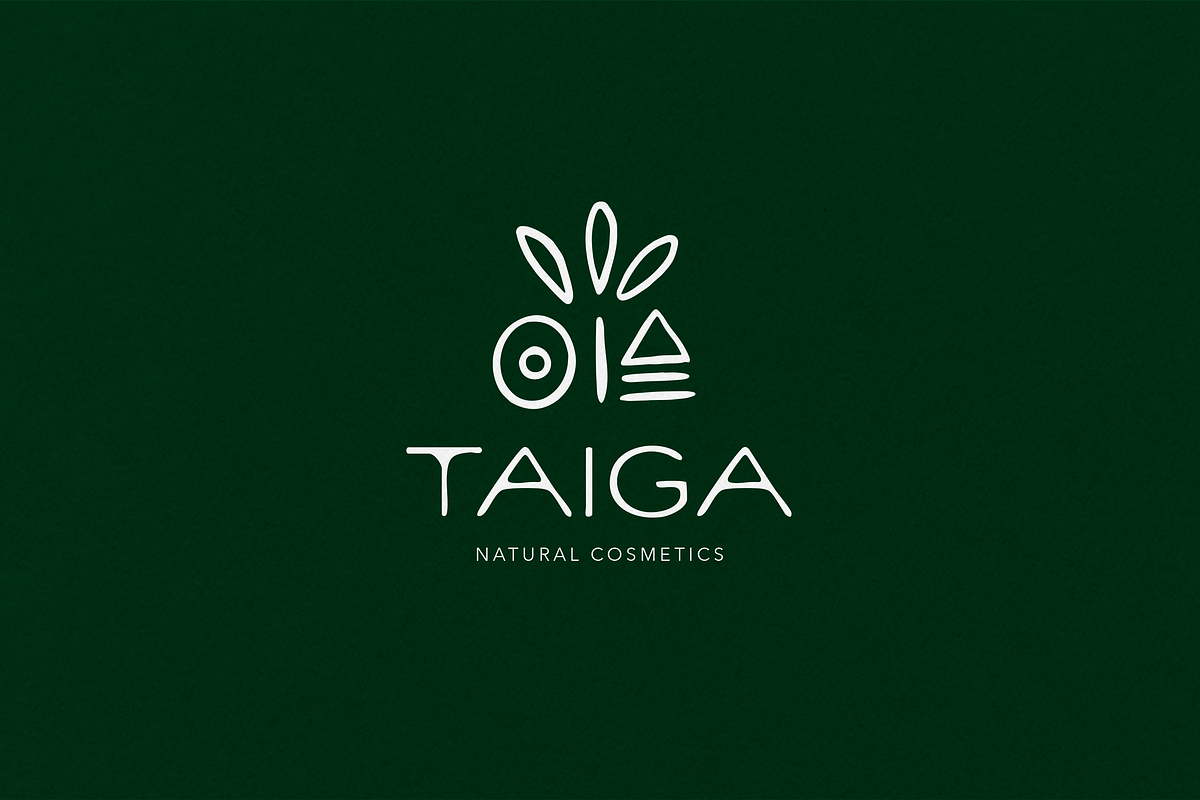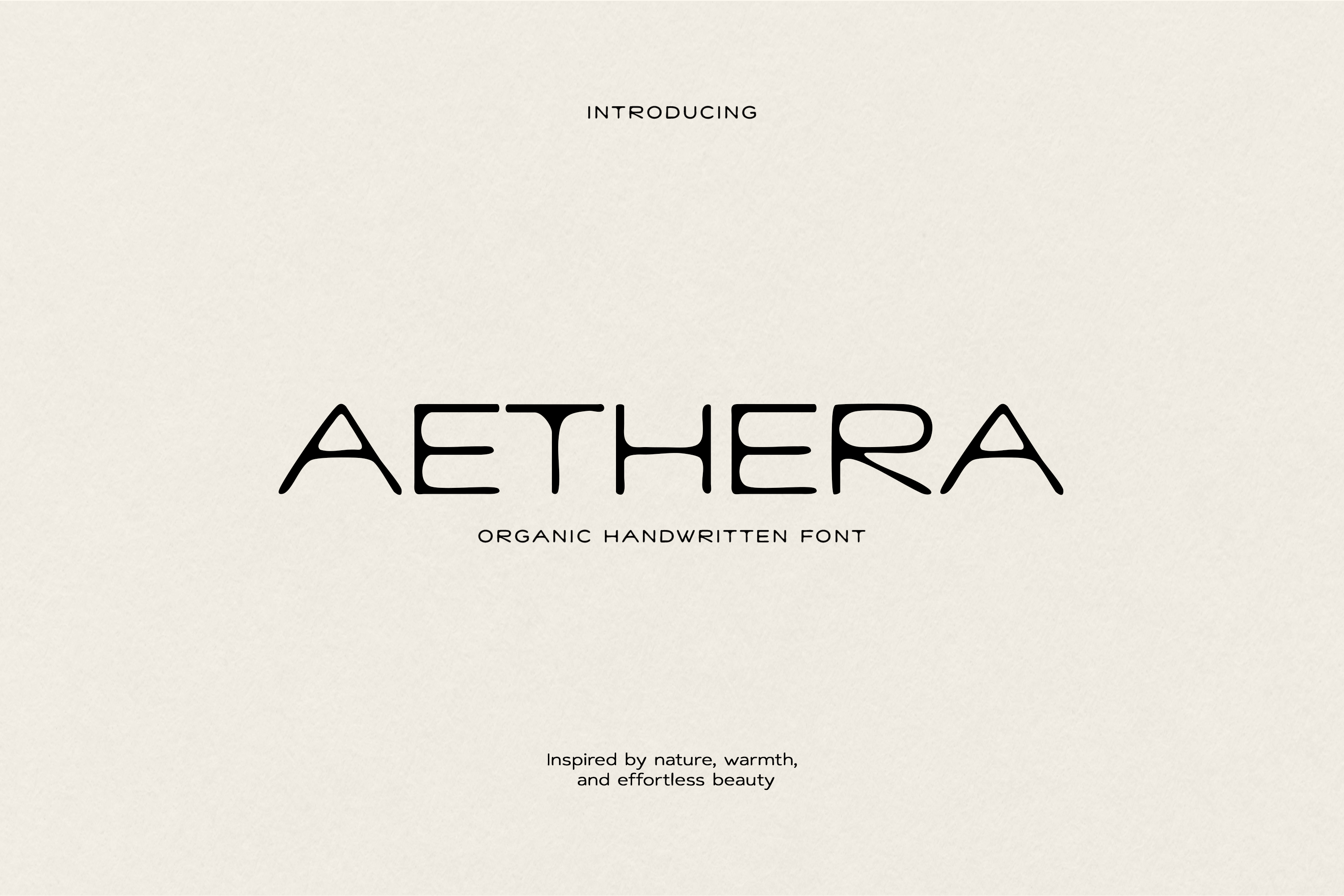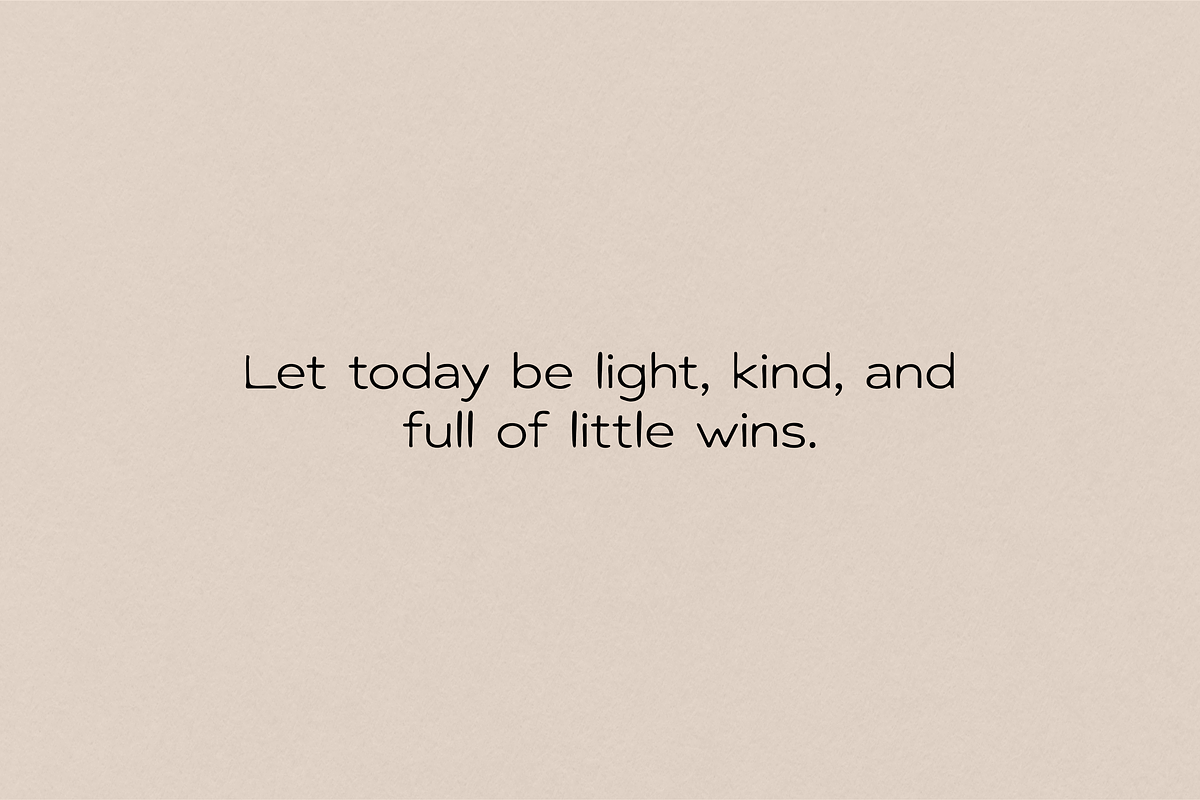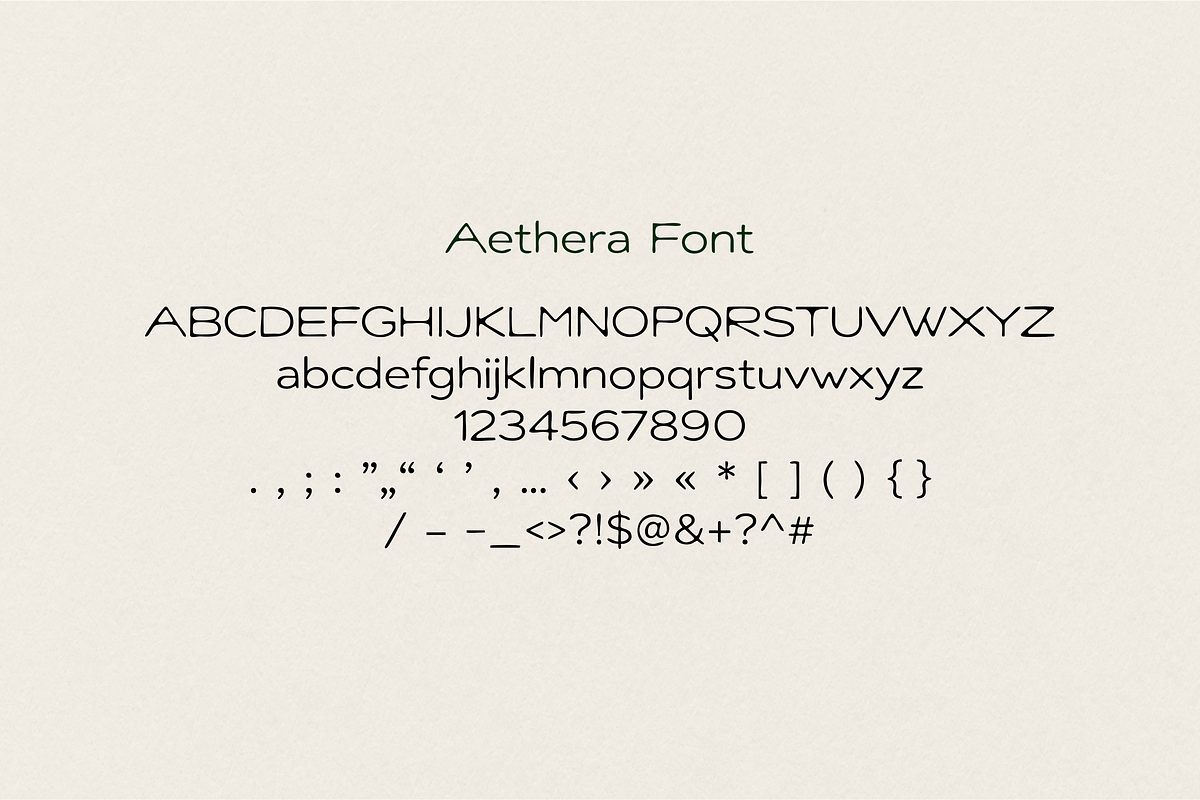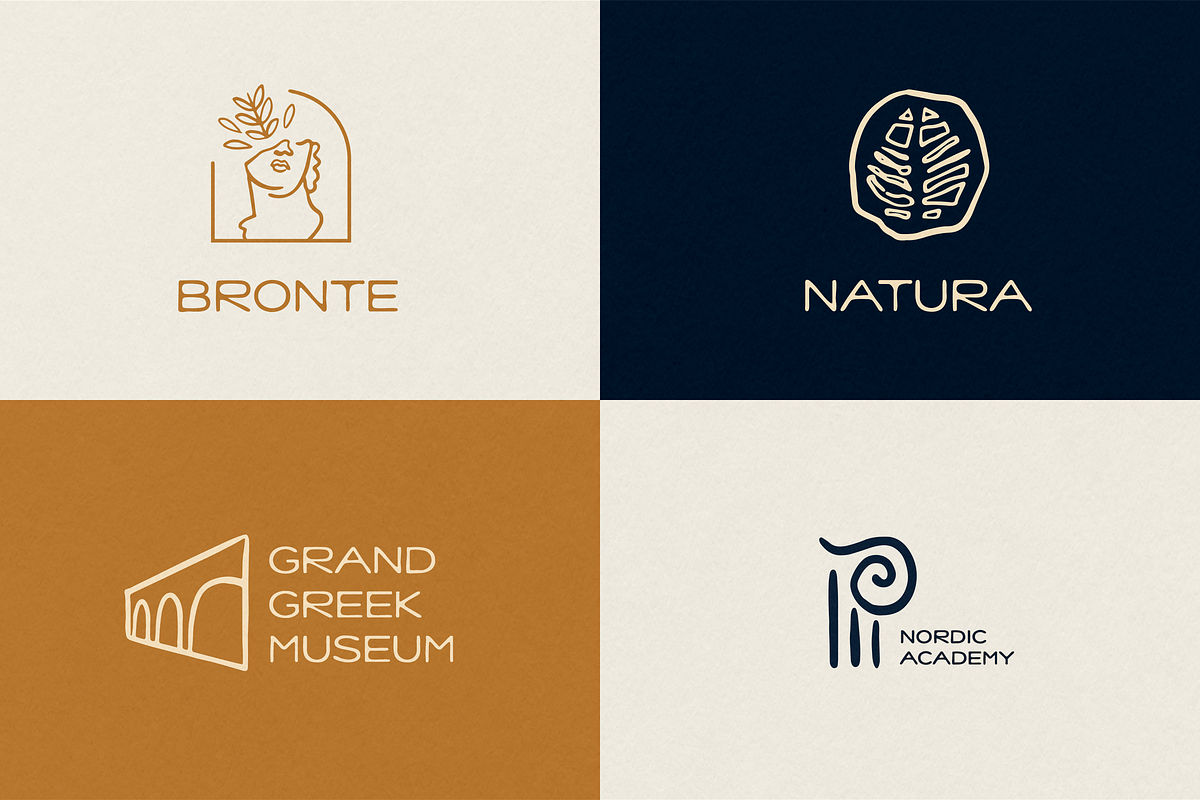
Aethera Organic Handwritten Font
Aethera is a soft organic handwritten font with smooth rounded lines and a natural handmade feel. This font is perfect for branding, logos, packaging, wedding invitations, quotes, social media graphics, product labels, stickers, and cozy creative projects. Its gentle monoline style brings warmth, simplicity, and effortless beauty to every design.